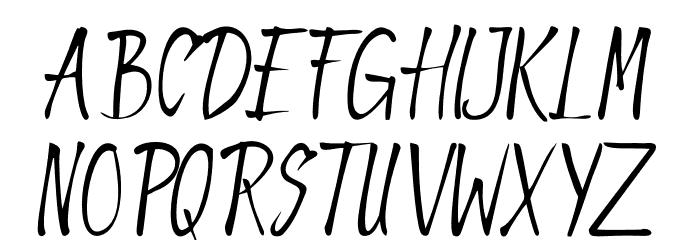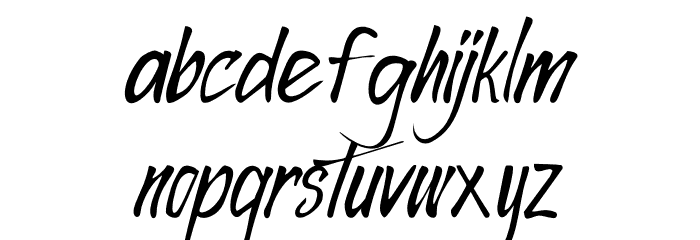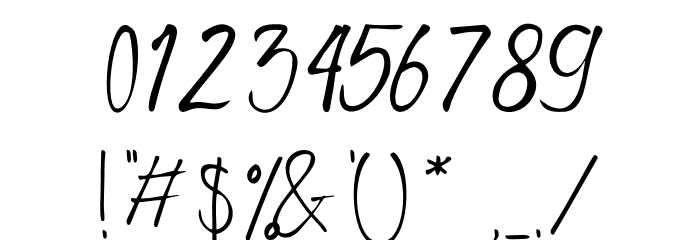
STREGONE Font
This font features an energetic and dynamic handwritten style, characterized by its fluid and slightly irregular strokes. The uppercase letters are tall and slender, with a slight slant that adds a sense of motion and liveliness. The lowercase letters maintain a consistent flow, with some characters extending below the baseline, enhancing its casual and informal appearance. The numerals are well-proportioned and align seamlessly with the overall style, while the special characters retain the same playful and expressive quality. This font exudes a sense of creativity and spontaneity, making it ideal for projects that require a personal and approachable touch.
A lively and dynamic handwritten font with fluid, slightly irregular strokes.
- Proposed Projects: Ideal for creative projects such as greeting cards, invitations, personal branding, and artistic posters.
- Overall Style: Casual
- Use Case: Logos, Invitations, Artistic Posters